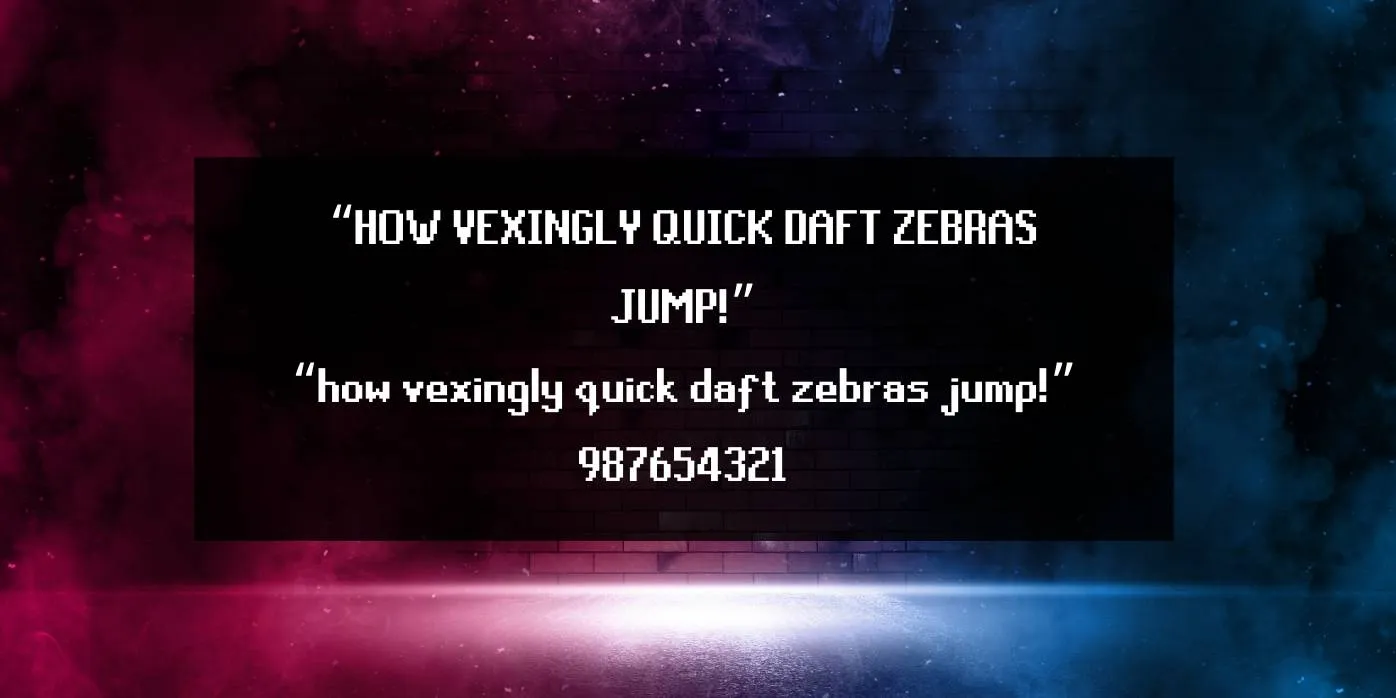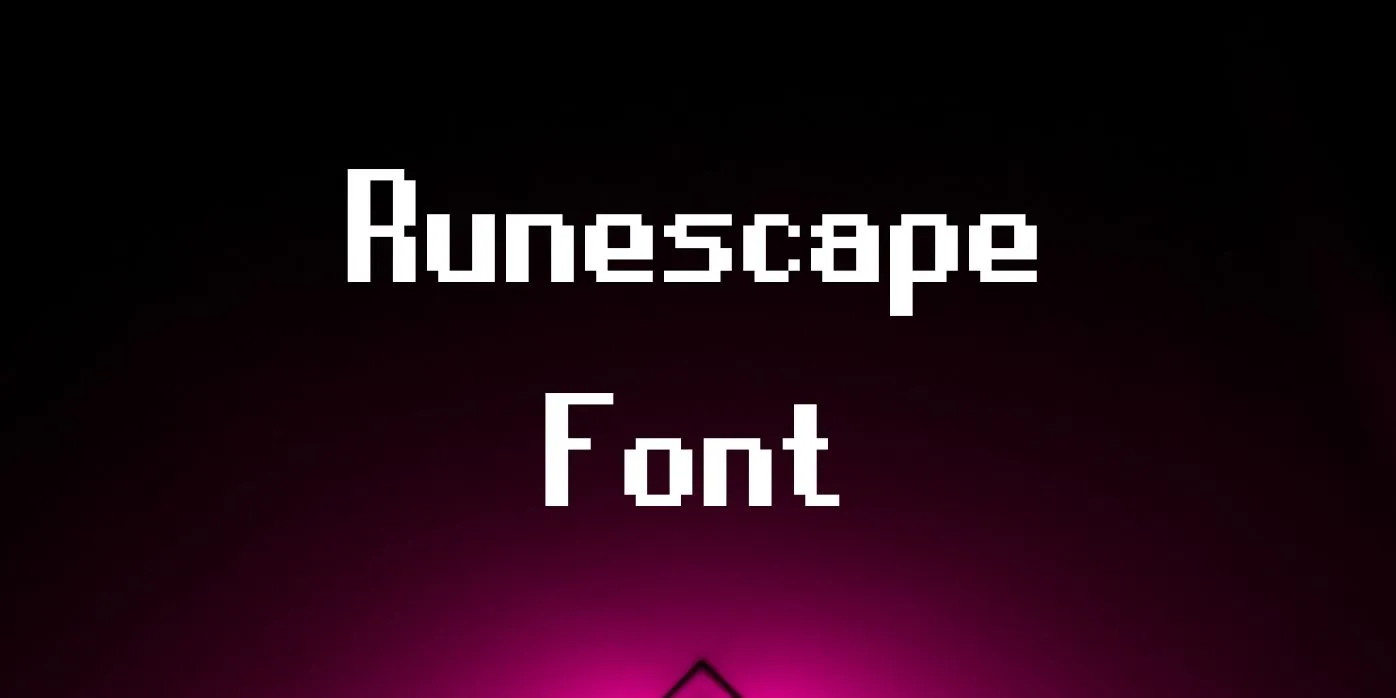
Runescape Font
Runescape Font is a famous display typeface that was developed by Nathan P. Brown. The font was created to mimic the typeface used in the game Runescape. The font is available in two styles, regular and italic.
This typeface includes many characters like symbols, arrows, and other game-related characters. The font can be used for personal or commercial purposes. This classy font is a great way to show your support for the game. You can easily convert your simple designs to colorful graphic designs.